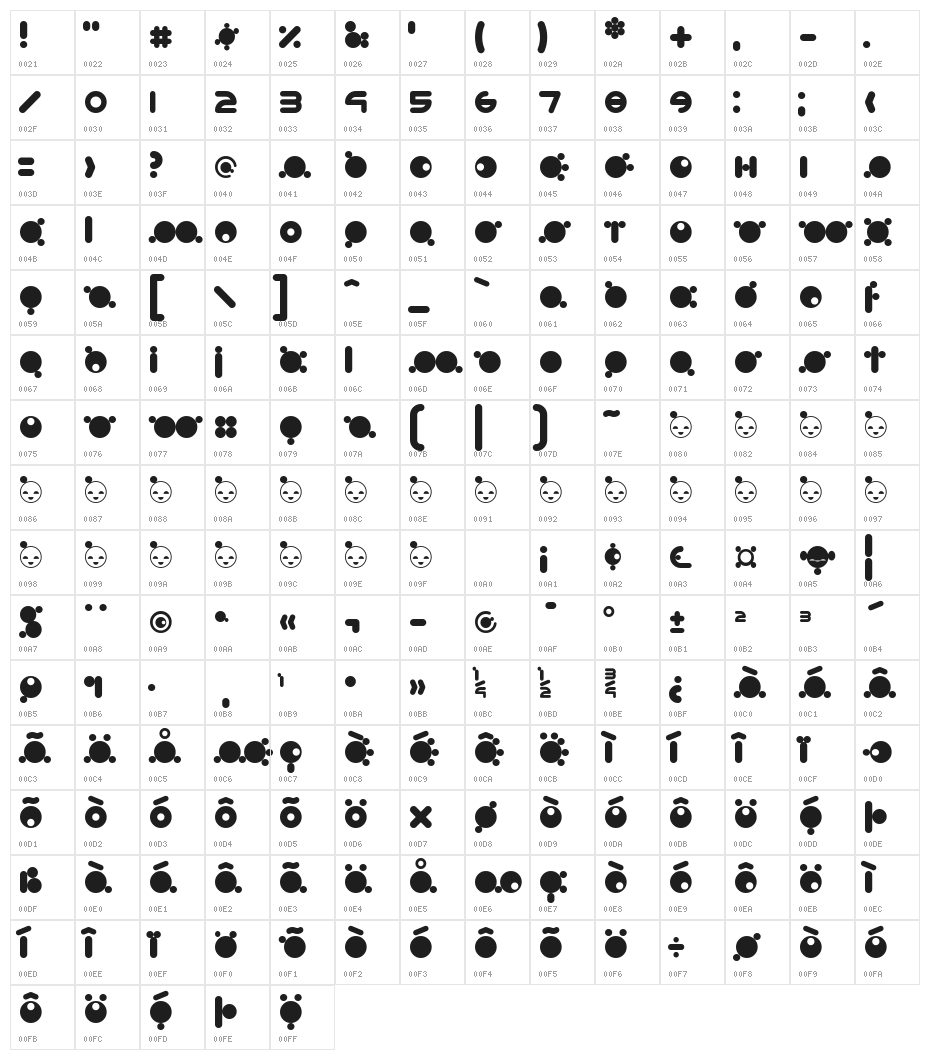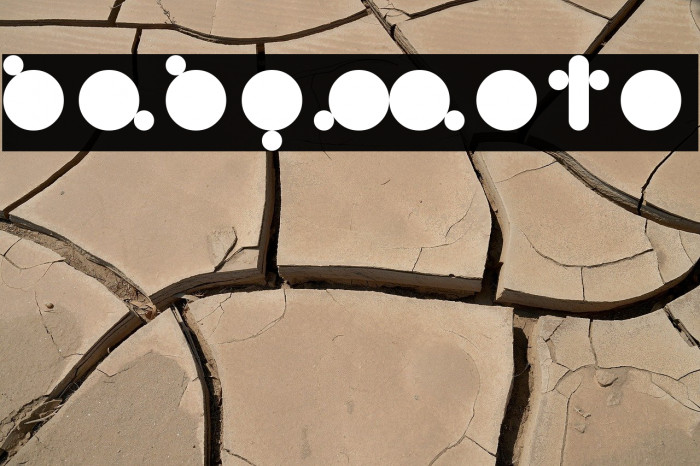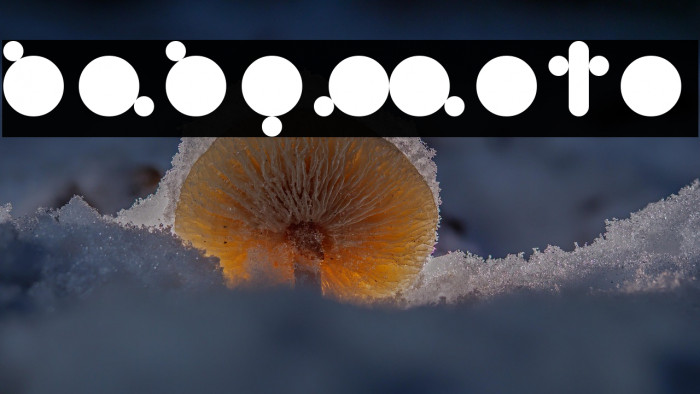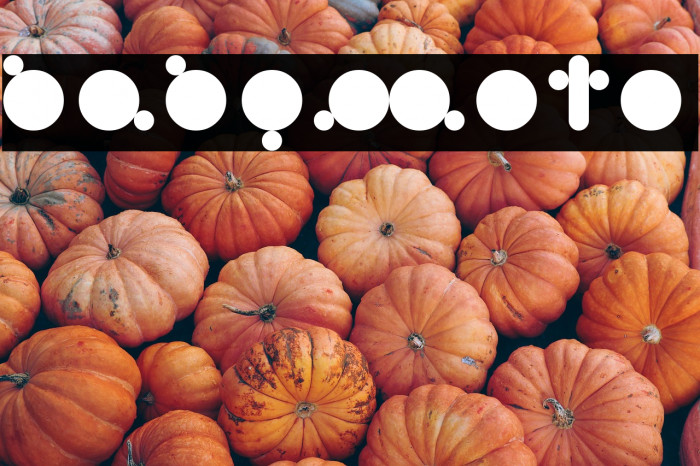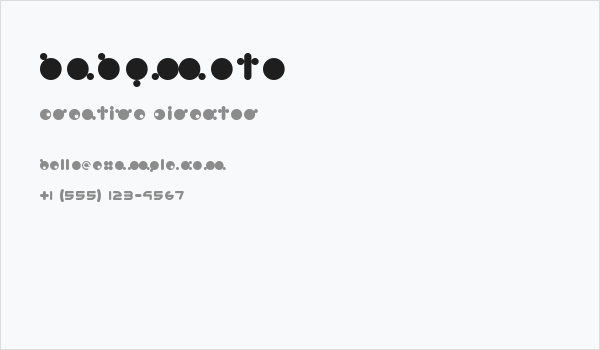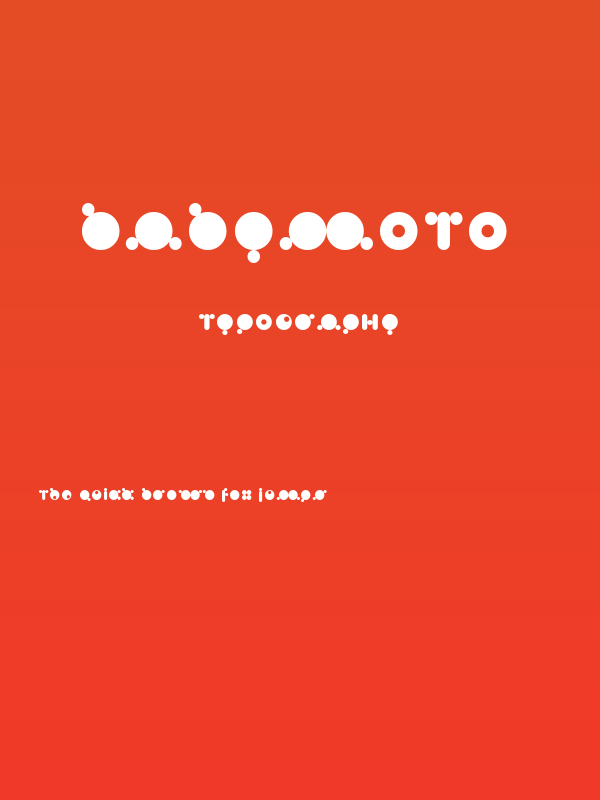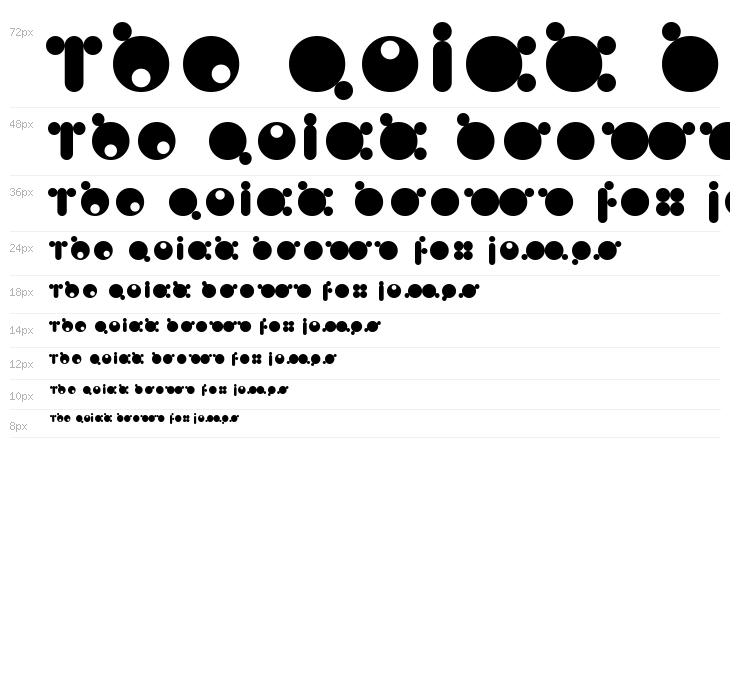
Babymoto Font
Babymoto Description
This font features a playful and unique design characterized by bold, circular shapes with small dot accents. The letters are formed with thick strokes, creating a bubbly and modern appearance. Each character is distinct, with a consistent use of rounded forms and additional dot embellishments that add a whimsical touch. The numbers and special characters follow the same design principles, ensuring a cohesive look across all glyphs. This font is eye-catching and ideal for projects that require a fun and engaging visual element.